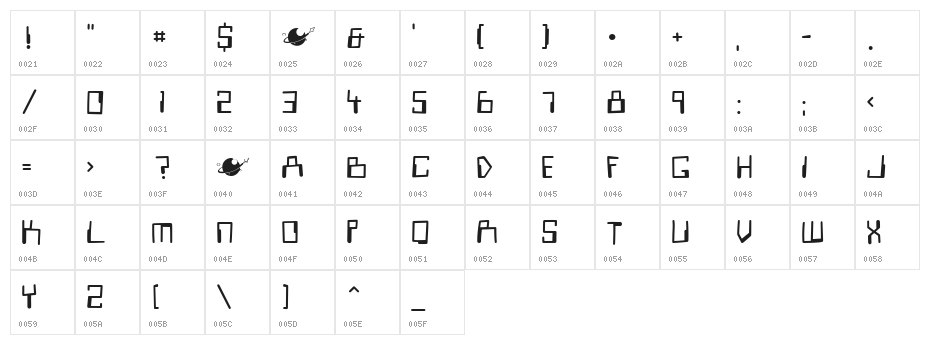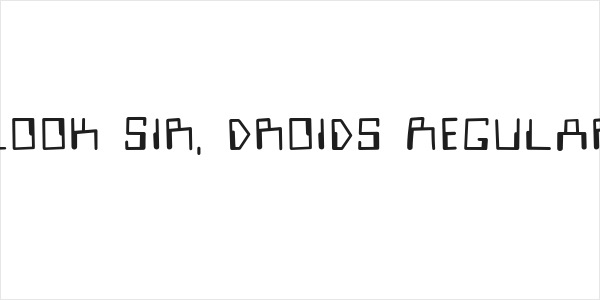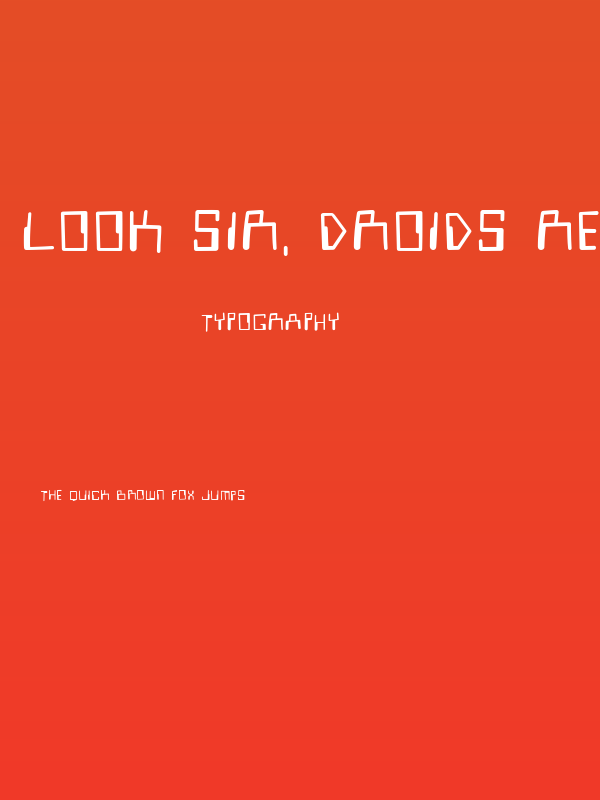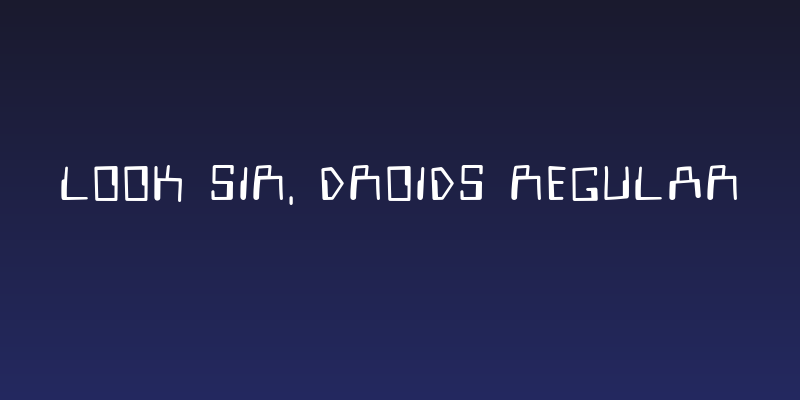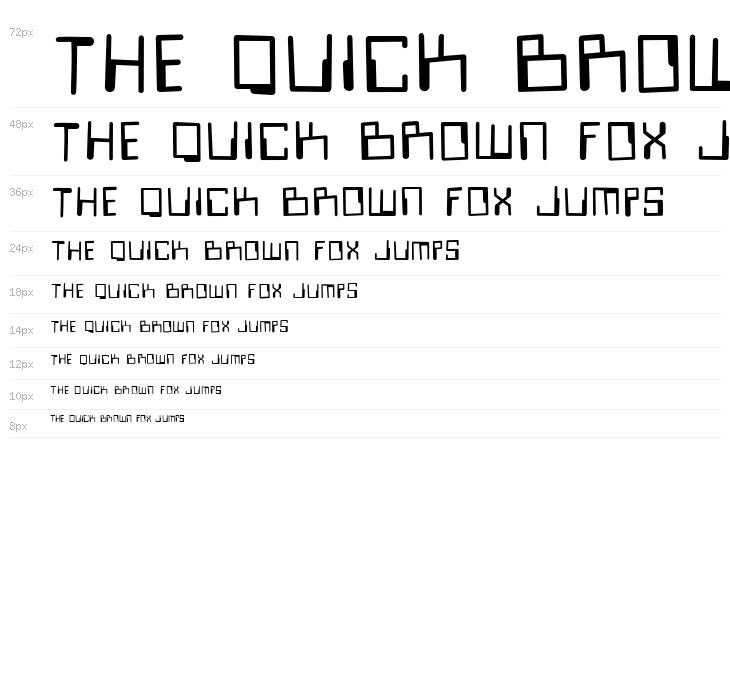
Look Sir, Droids Regular Font
Look Sir, Droids Regular Description
This font features a futuristic and geometric design, characterized by its angular and block-like letterforms. The uppercase and lowercase letters share a consistent style, with sharp edges and a uniform stroke width that gives it a mechanical and robotic appearance. The numerals and special characters maintain this cohesive design, adding to the font's overall sci-fi aesthetic. The characters are evenly spaced, providing a clean and organized look. This font is ideal for projects that require a modern and technological feel, such as video game titles, tech branding, or sci-fi themed posters.
| Proposed Projects | Ideal for video game titles, tech branding, sci-fi themed posters, and futuristic designs. |